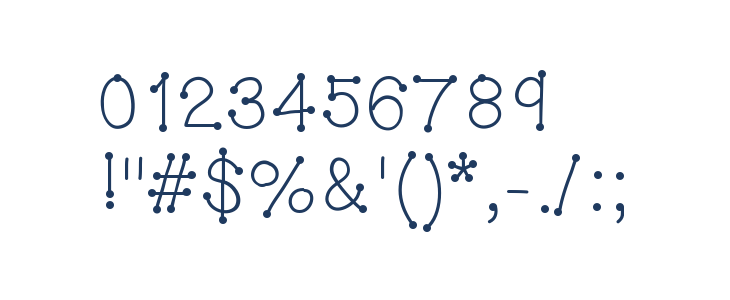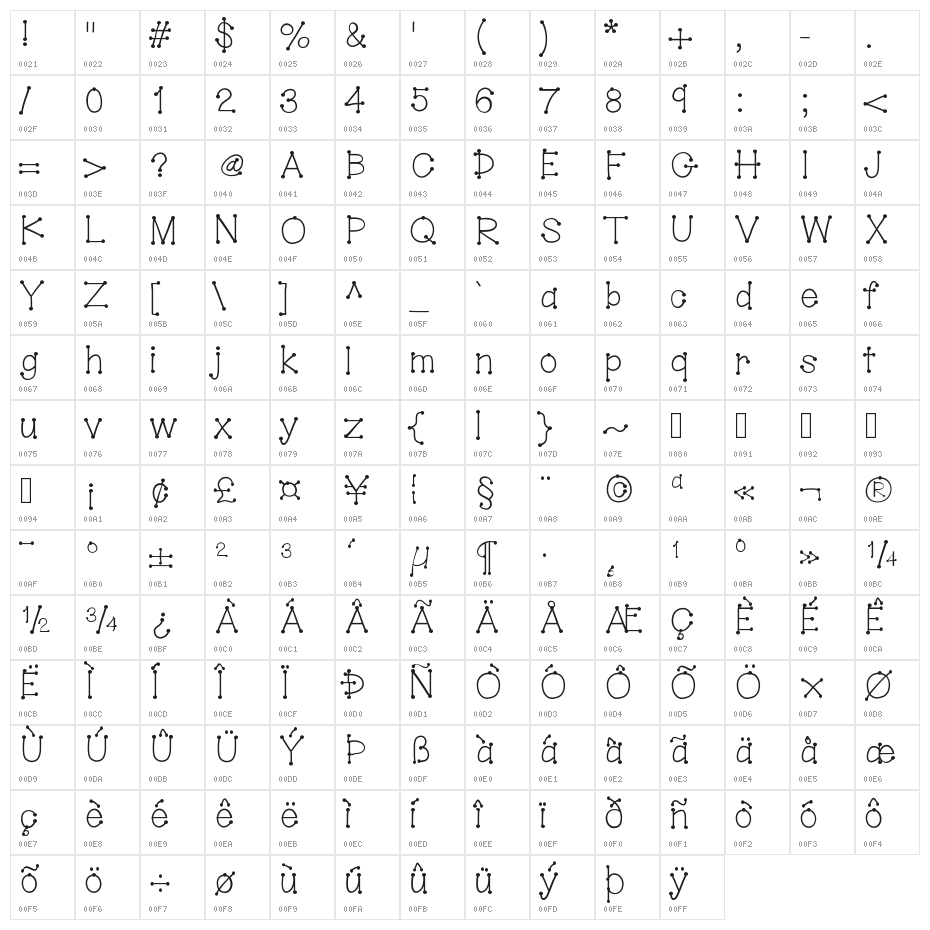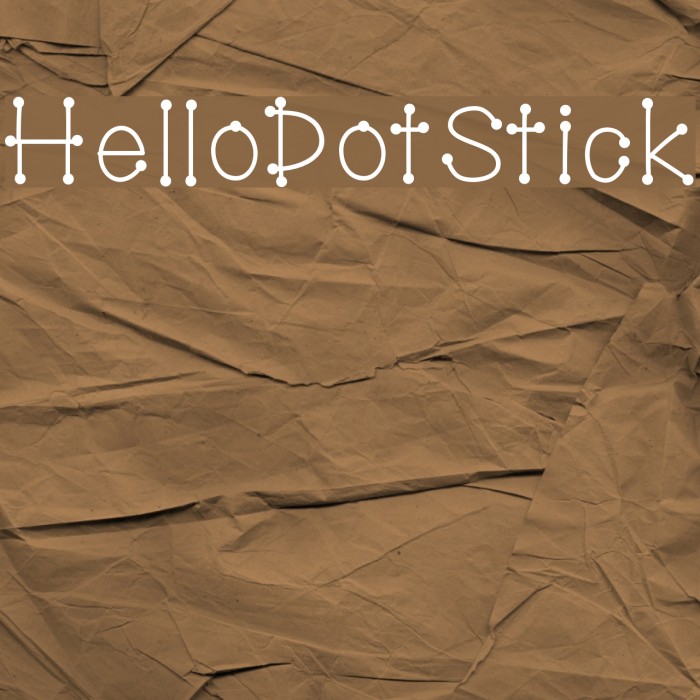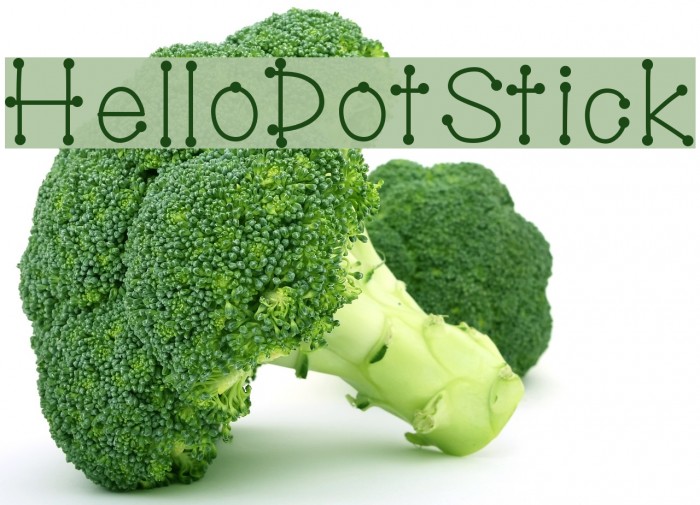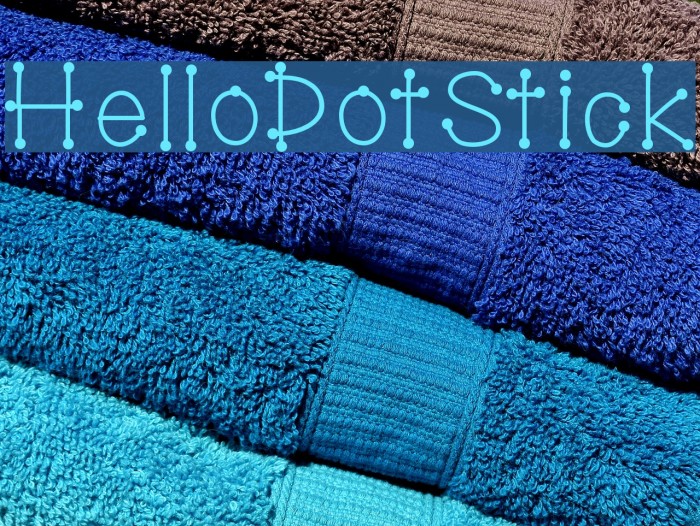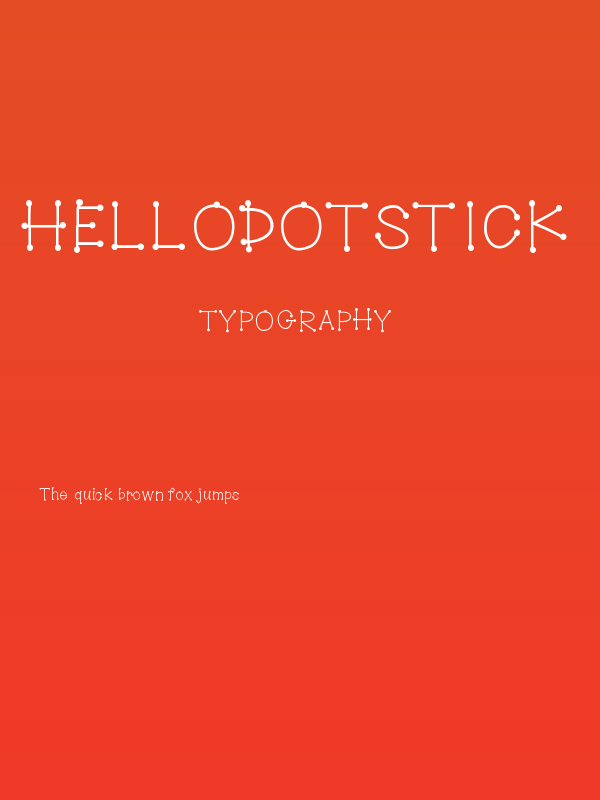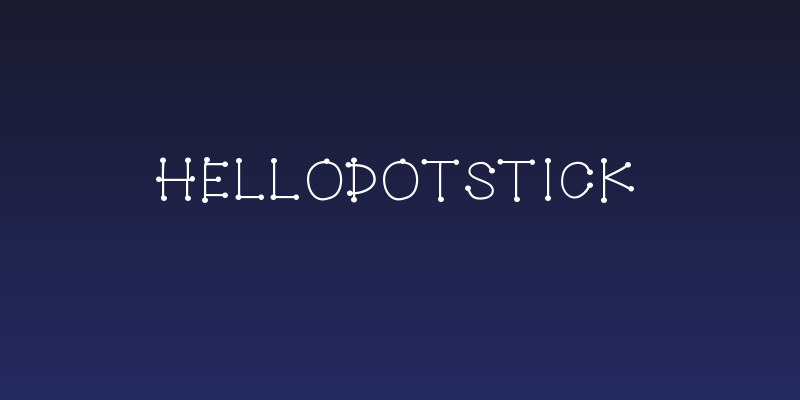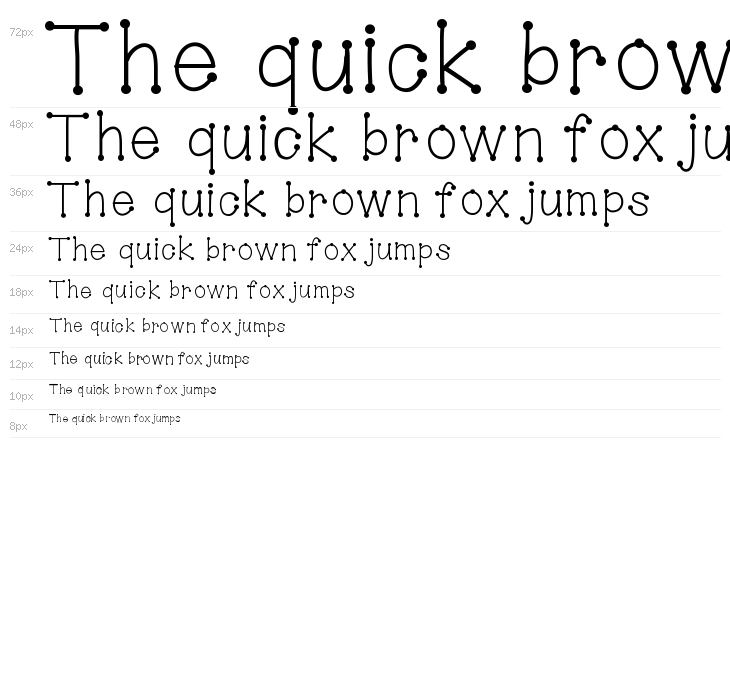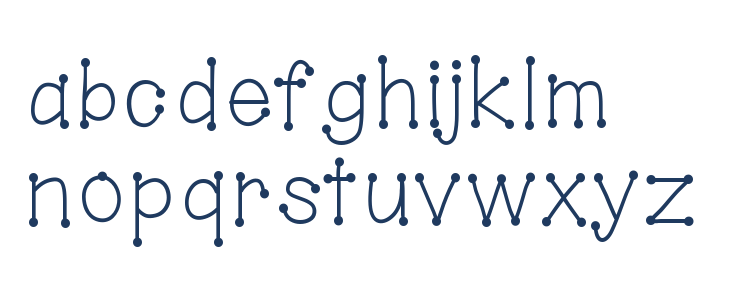
HelloDotStick Font
HelloDotStick Description
This playful and distinctive font features a unique design where each character is constructed with dots connected by thin lines, resembling a dot-to-dot puzzle. The uppercase and lowercase letters maintain a consistent style, with rounded forms and a whimsical appearance. The numerals and special characters follow the same dotted theme, ensuring uniformity across the entire typeface. This font's design is both eye-catching and fun, making it ideal for projects that require a lighthearted and creative touch.
| Overall Style | Playful, Creative |
| Proposed Projects | Ideal for children's books, educational materials, playful branding, and creative posters. |